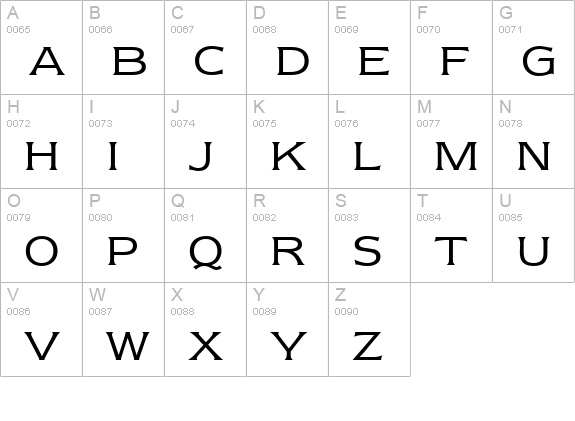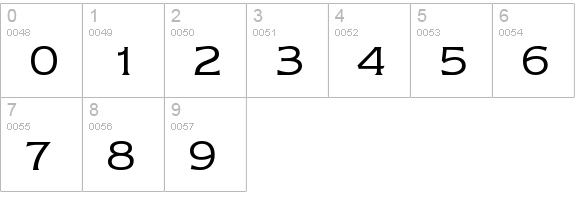
Nebraska-Regular Font Details
Nebraska-Regular is the standard, neutral variant in the Nebraska typeface family \xE2\x80\x94 well suited to general body text, paragraphs, and standard typographic work.
Nebraska-Regular font is a classic and versatile typeface that exudes a sense of reliability and sophistication. With its clean lines and timeless appearance, Nebraska-Regular is perfect for a wide range of design projects, from branding and marketing materials to editorial and web design. This font is freely available to download at FontsMarket.com, making it easily accessible for designers and creatives looking to elevate their work with a touch of elegance and professionalism. Whether you're working on a corporate brochure, a sleek logo, or a stylish website, Nebraska-Regular has the flexibility and versatility to enhance your designs and make them stand out. With its tasteful simplicity and understated charm, Nebraska-Regular is a go-to choice for anyone seeking a polished and refined aesthetic in their typography. Download it for free today at FontsMarket.com and elevate your design projects with this timeless and versatile font.